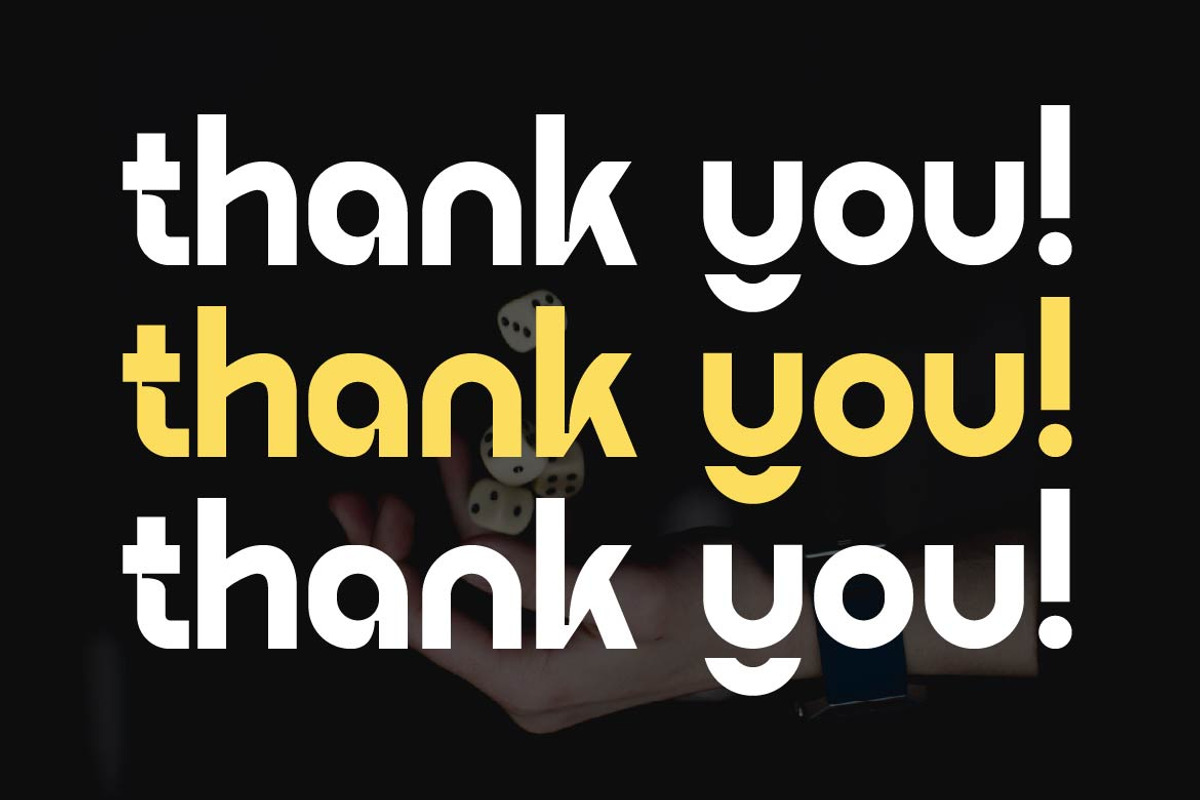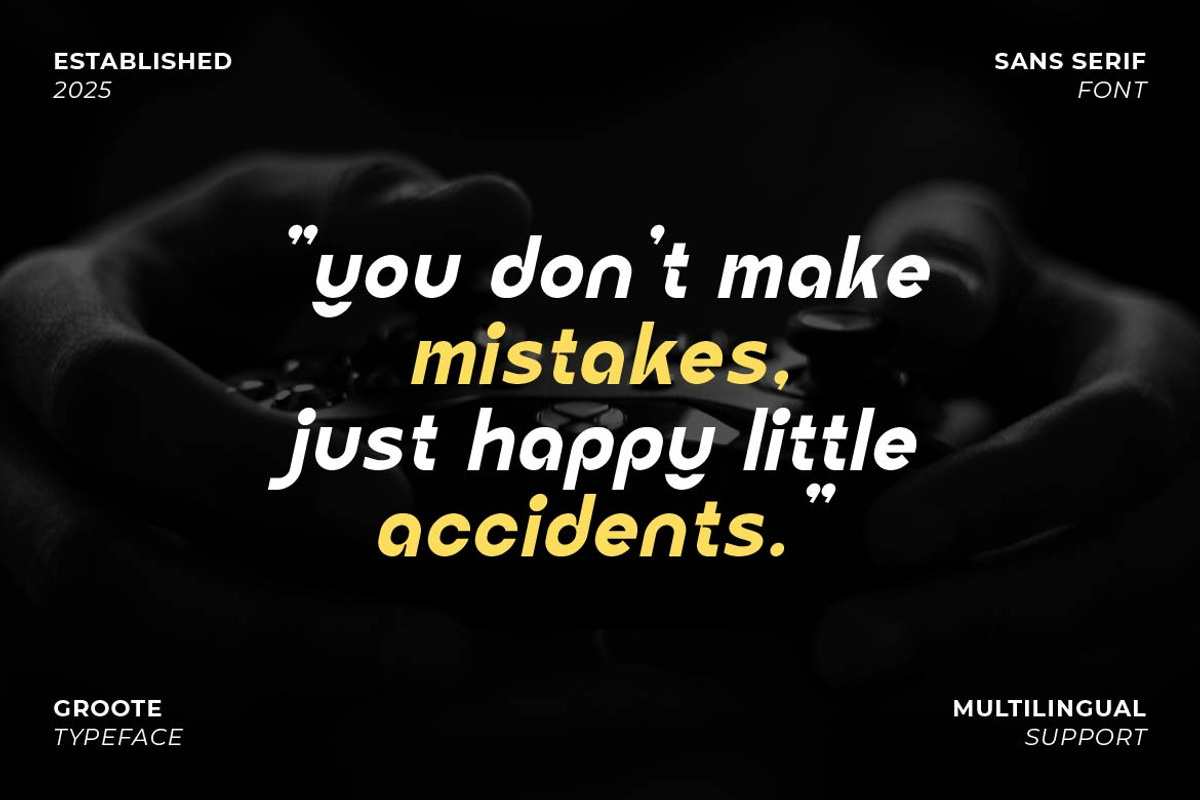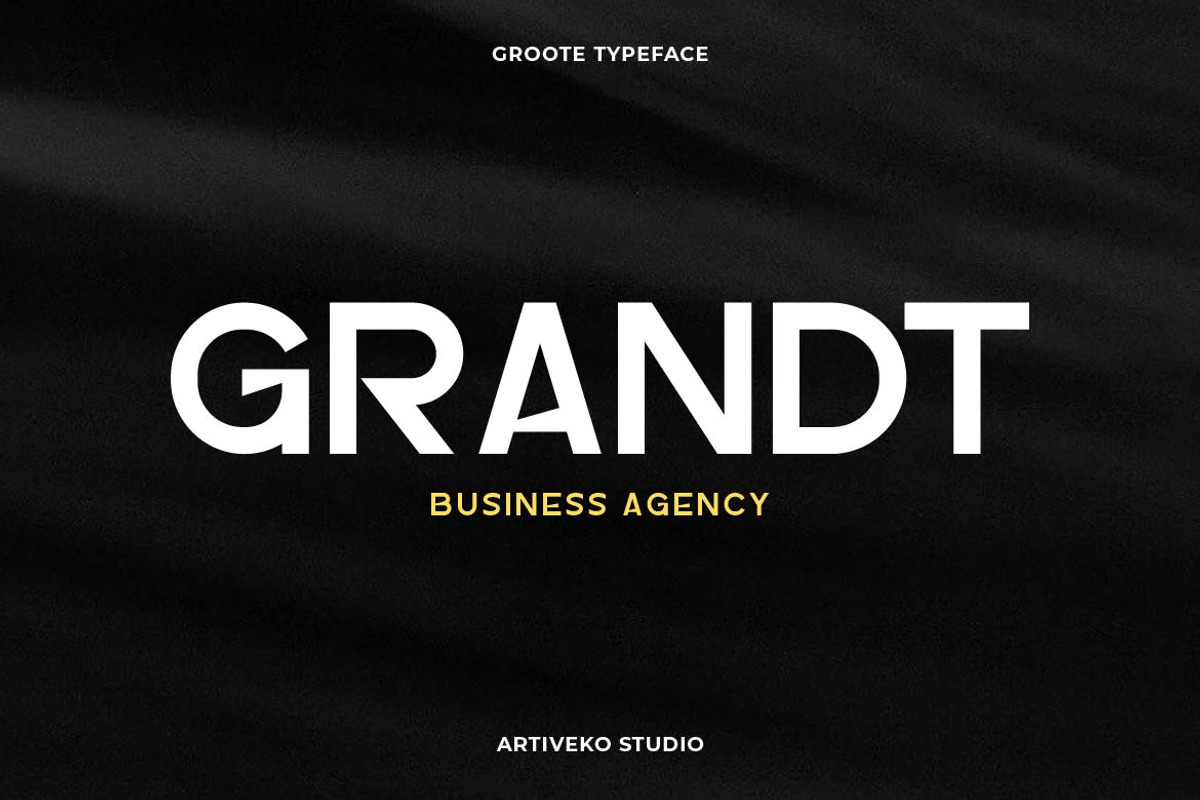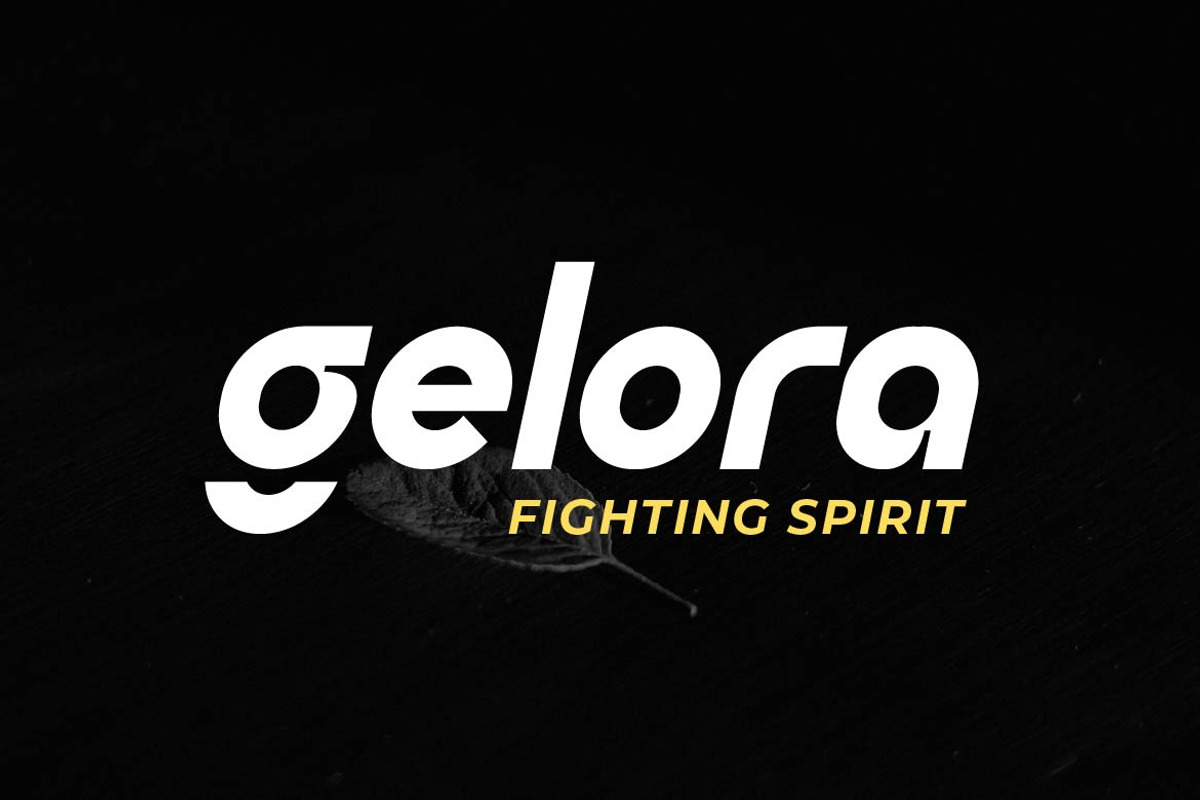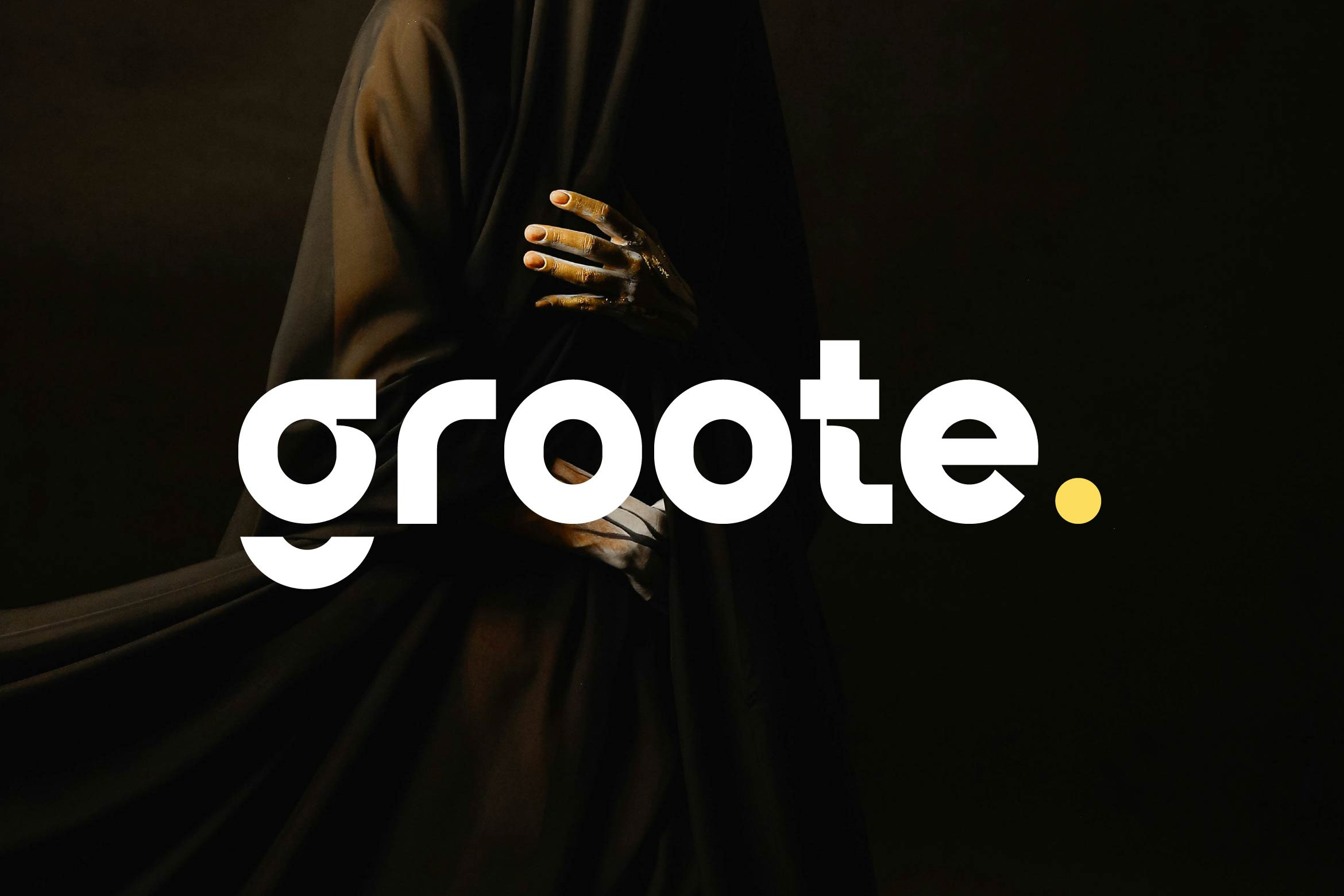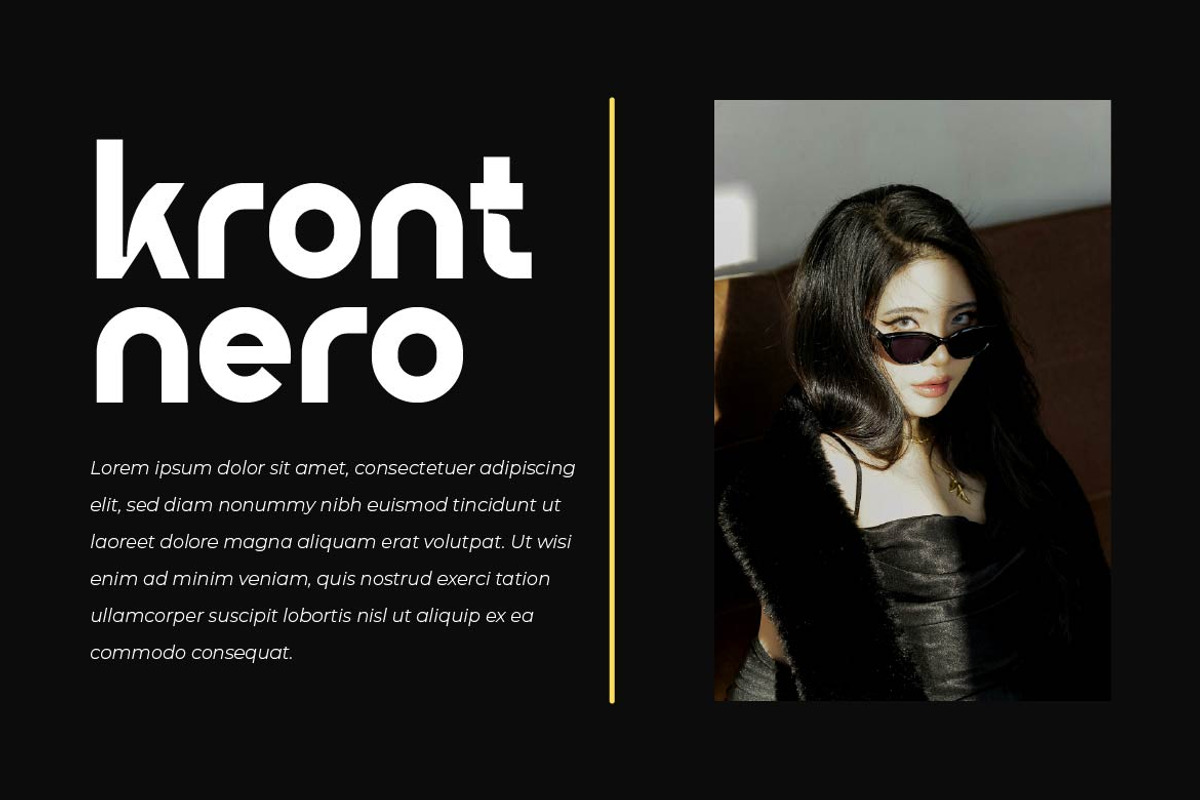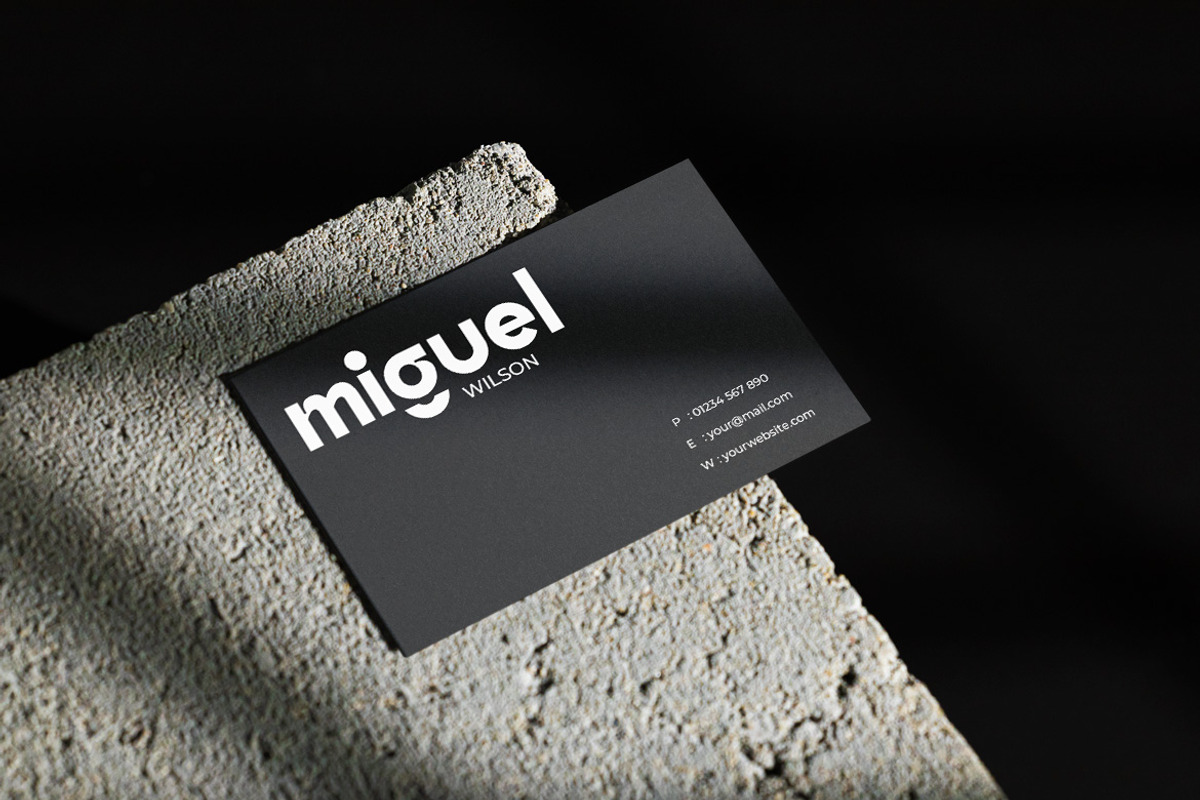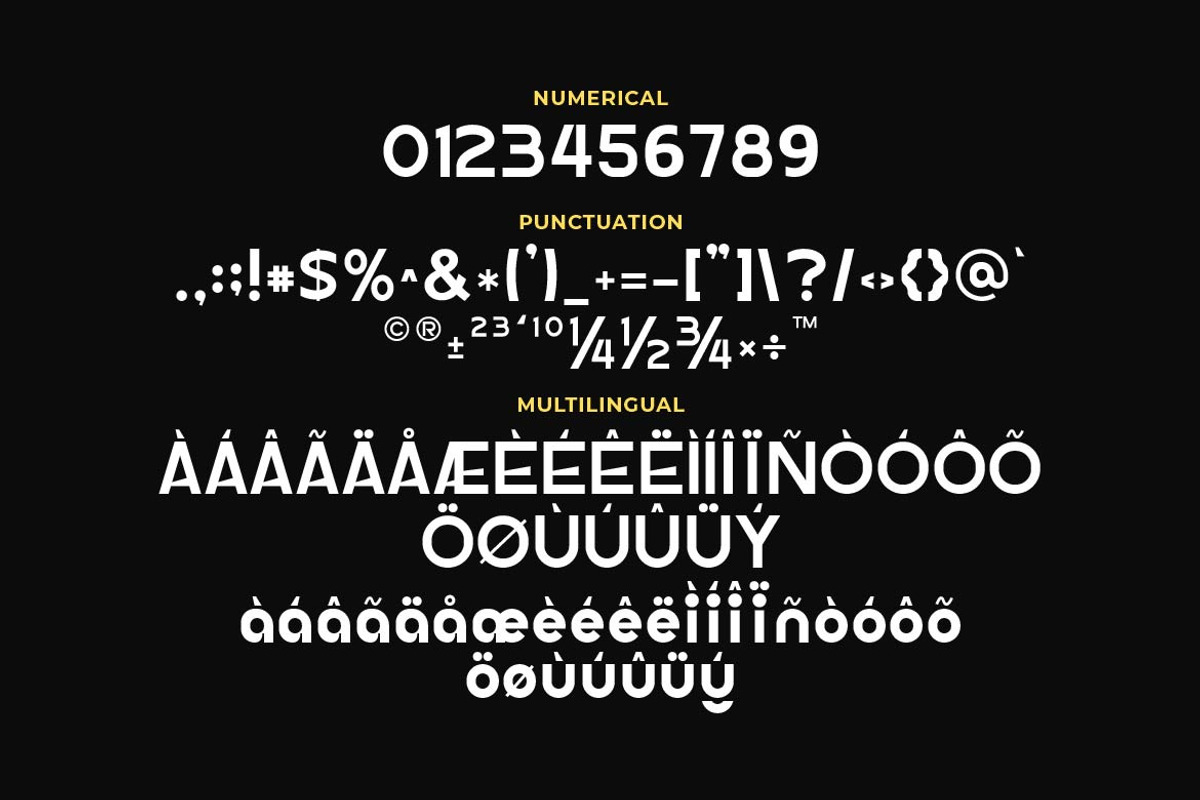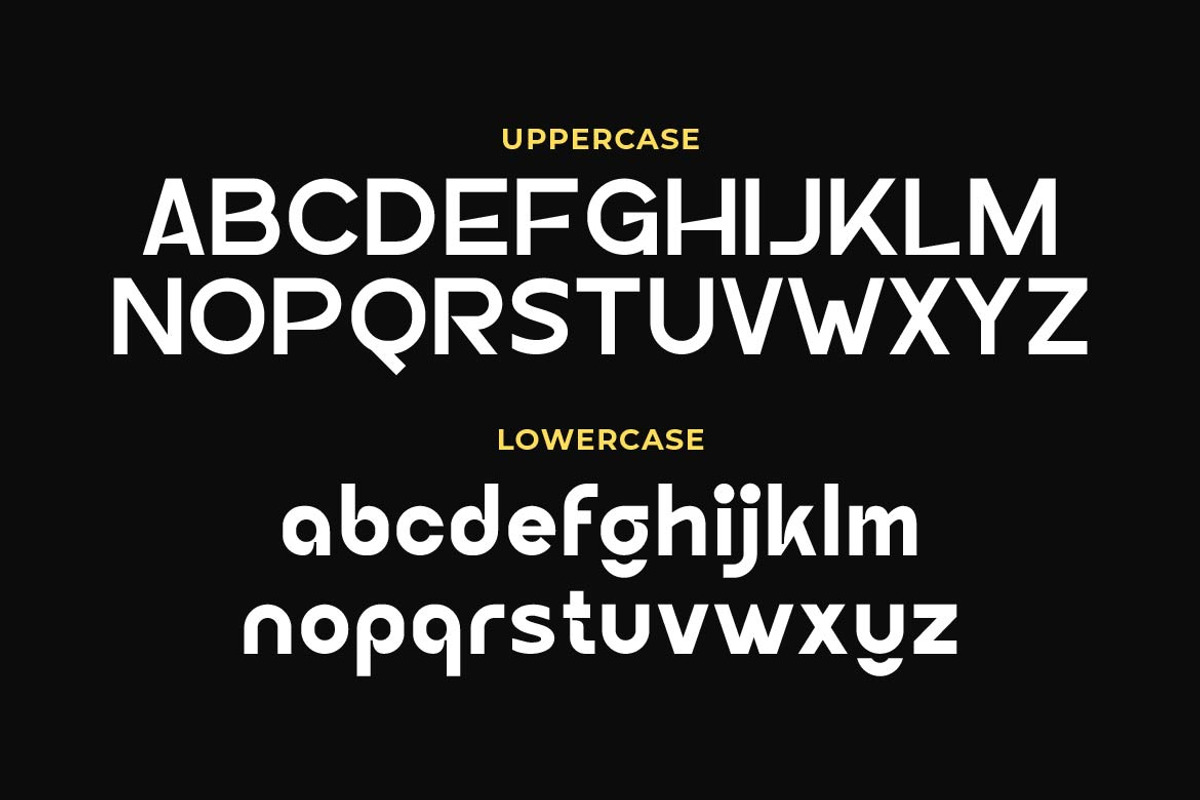
Groote - Geometric Sans Logo Font
Groote is an elegant and modern sans serif typeface designed for sophisticated logo design and premium branding. With its sleek letterforms, graceful proportions, and timeless minimalism, Groote delivers a refined aesthetic that works beautifully across fashion labels, luxury products, editorial layouts, and digital platforms.